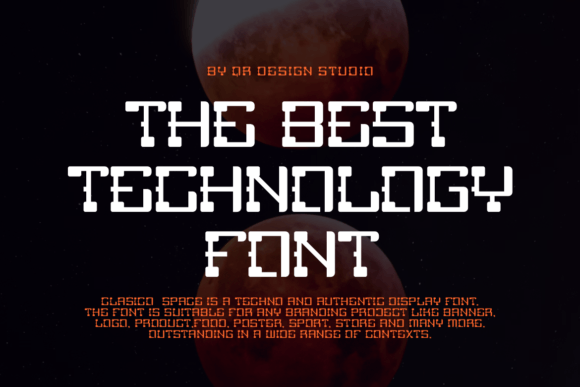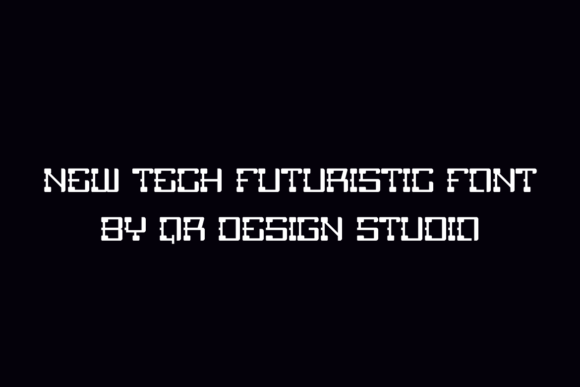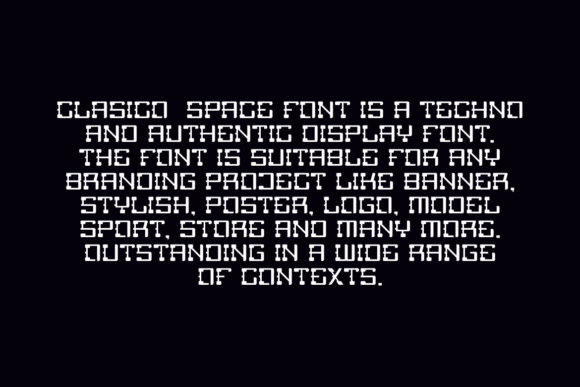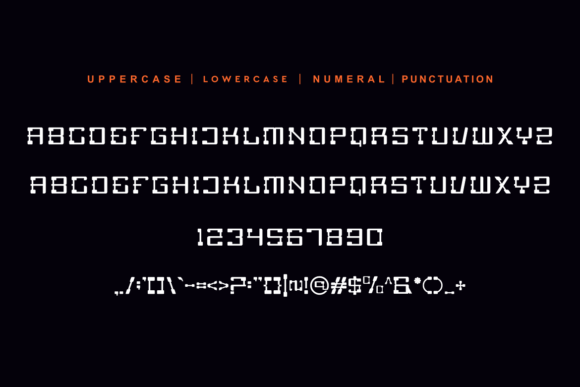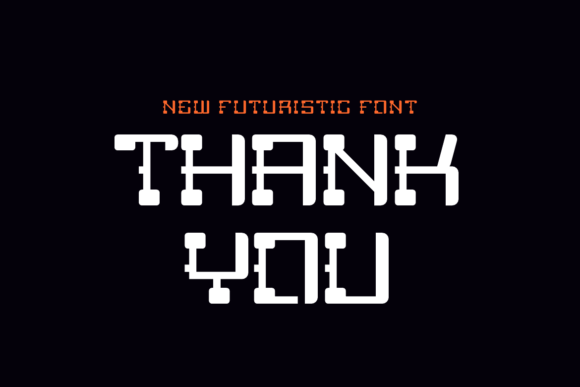
Introduction to Clasico Space Font
Have you ever been in the middle of a creative project, staring at a blank screen, trying to come up with the perfect font to bring your design to life? It’s a feeling we’ve all been there, and it’s a moment that can make or break the success of our work. But what if I told you there’s a font that can save the day, and add a touch of quirkiness to your design?
Enter the Clasico Space Font, a unique and fascinating decorative font that’s sure to elevate your design game. With its transparent background and high-quality design, this font is a valuable resource for designers looking to add a little extra something to their projects. And the best part? It’s available for free download, making it an accessible design resource for creatives of all levels.
Whether you’re working on a personal project or a professional design, the Clasico Space Font is a game-changer. Its versatility and unique style make it the perfect addition to any creative endeavor, and its high-quality design ensures that it will look great on any background or context.
Key Features of Clasico Space Font
- Unique Space-Themed Typography: Clasico Space Font offers a distinctive and creative typography design, perfect for any space-themed project or design resource.
- High-Quality Design: The font is designed with high-quality graphics, ensuring a crisp and clear display, ideal for both digital and print designs.
- Transparent Background: This font features a transparent background, making it easy to place on any design without worrying about unwanted backgrounds.
- Perfect for Creative Projects: Clasico Space Font is ideal for any creative project that requires a unique and eye-catching typography design, such as posters, flyers, and website headers.
Honest Review: Clasico Space Font
I recently stumbled upon the Clasico Space Font and I must say it’s a great addition to any creative project. The font is available for a free download, which is a huge plus for designers like me who are always on the lookout for high-quality design resources.
One of the things that works well with this font is its versatility. It can be used for a variety of design projects, from logos to brochures, and even websites. The transparent background also makes it easy to use in any design scenario.
Here are some of the key features that I like about the Clasico Space Font:
- High-quality design that’s perfect for creative projects ✨
- Transparent background for easy use in any design scenario ✨
However, I did notice that the font is not suitable for all design projects. Here are some limitations:
- May not be suitable for body text due to its decorative nature ⚠️
- Can be difficult to read at small font sizes ⚠️
Overall, I think the Clasico Space Font is a great design resource that’s perfect for creative projects. While it may have some limitations, its high-quality design and free download make it a great addition to any designer’s toolkit.
Tips for Getting the Most Out of Clasico Space Font
Experiment with different font sizes and styles to add visual interest to your design. Use the Clasico Space Font in combination with other design resources to create a unique and eye-catching visual effect.
The Clasico Space Font is a versatile design resource that can be used in a variety of creative projects, including logos, branding materials, and digital displays. Its transparent background makes it easy to overlay on top of images or videos, adding an extra layer of depth and visual interest.